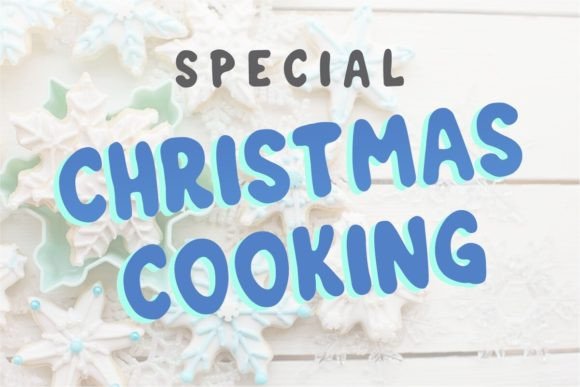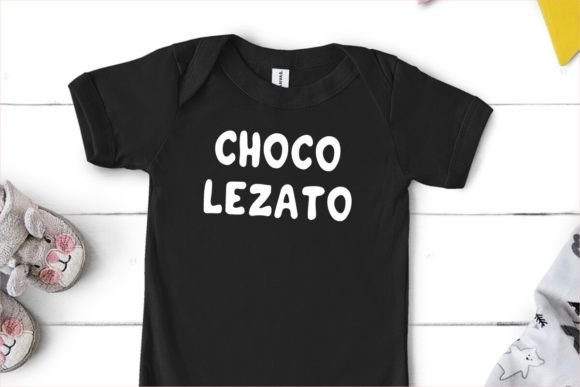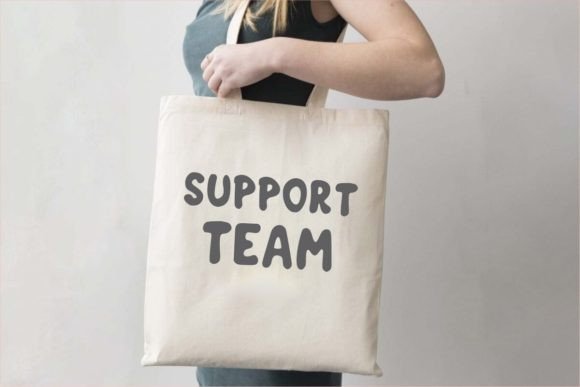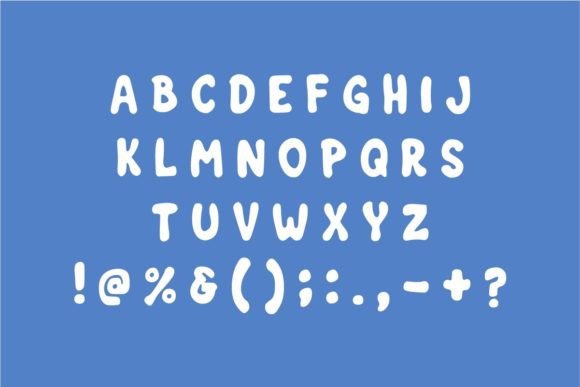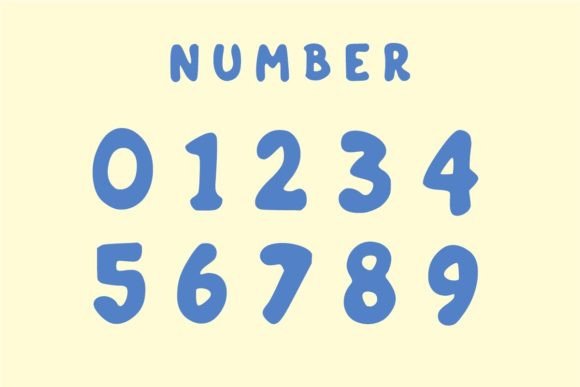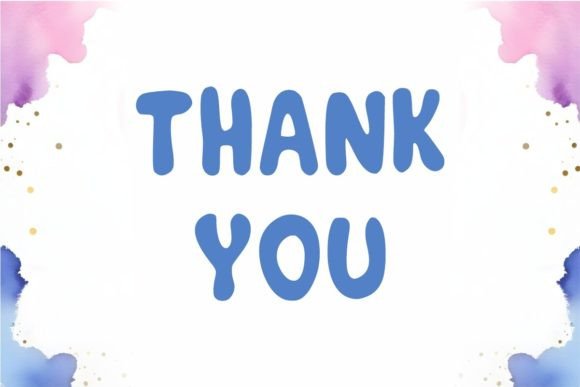
Cookies Snowing Font: The Perfect Addition to Your Creative Projects
Are you looking for a font that can add a touch of fun and playfulness to your creative projects? Look no further than the Cookies Snowing Font! This kid-friendly and fun display font is perfect for making your projects stand out, and its versatility makes it suitable for a wide range of applications.
What Makes Cookies Snowing Font So Special?
Cookies Snowing Font is a unique and eye-catching font that is sure to capture the attention of your audience. Its playful and whimsical design makes it perfect for projects that require a touch of fun and personality. Whether you’re working on a children’s book, a sticker design, or a social media post, this font is sure to add a dash of excitement and energy.
Cookies Snowing Font is an incredibly versatile font that can be used for a wide range of projects. Some of the most popular uses for this font include:
- Shirts: Add a fun and playful touch to your t-shirt designs with Cookies Snowing Font. Its bold and eye-catching design makes it perfect for creating unique and memorable designs.
- Stickers: Create fun and colorful stickers that kids will love with Cookies Snowing Font. Its playful design makes it perfect for stickers that feature cartoon characters, animals, or other whimsical designs.
- Book Covers: Add a touch of fun and personality to your book covers with Cookies Snowing Font. Its playful design makes it perfect for children’s books, activity books, and other publications that feature colorful and whimsical illustrations.
- Children’s Books: Create engaging and interactive children’s books with Cookies Snowing Font. Its playful design makes it perfect for storybooks, activity books, and other publications that feature colorful and whimsical illustrations.
- Social Media Postings: Add a touch of fun and personality to your social media postings with Cookies Snowing Font. Its playful design makes it perfect for creating engaging and interactive posts that feature colorful and whimsical illustrations.
- Invitations: Create fun and playful invitations for kids’ parties, events, and other celebrations with Cookies Snowing Font. Its playful design makes it perfect for creating unique and memorable invitations that kids will love.
Why Choose Cookies Snowing Font?
There are many reasons why Cookies Snowing Font is the perfect choice for your creative projects. Some of the top benefits of this font include:
- Kid-Friendly Design: Cookies Snowing Font features a playful and kid-friendly design that is sure to appeal to children and adults alike.
- Versatility: This font is incredibly versatile and can be used for a wide range of projects, from shirts and stickers to book covers and social media postings.
- Unique Design: This font features a unique and eye-catching design that is sure to make your projects stand out.
Cookies Snowing Font is a fun and playful display font that is perfect for adding a touch of personality to your creative projects. Its kid-friendly design, versatility, and ease of use make it an excellent choice for designers, crafters, and DIY enthusiasts. Whether you’re working on a children’s book, a sticker design, or a social media post, Cookies Snowing Font is sure to make your project stand out. So why wait? Download Cookies Snowing Font today and start creating fun and engaging projects that kids will love!